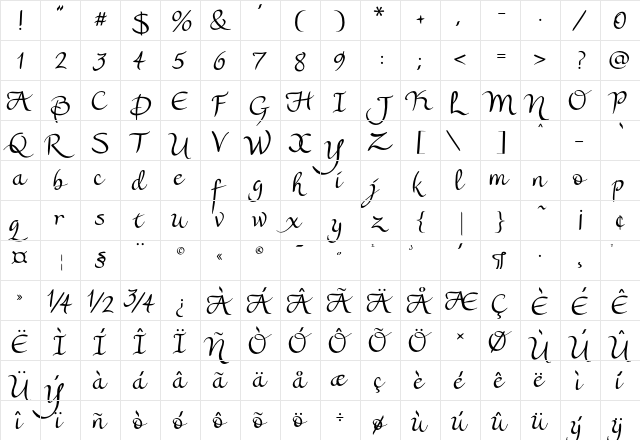
Lorelei Regular
| Foundry | Jeremy Dooley |
Design Context for Lorelei Typeface
Lorelei is a composed and adaptable typeface that performs quietly and consistently across a wide range of design contexts.